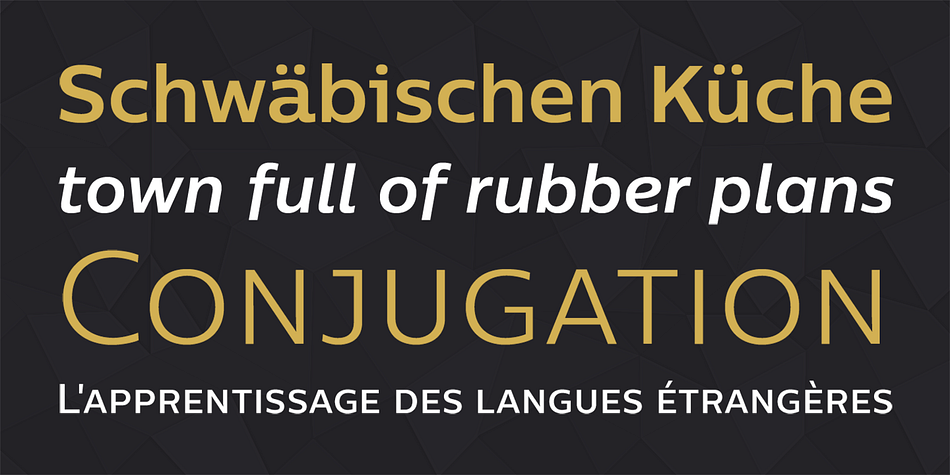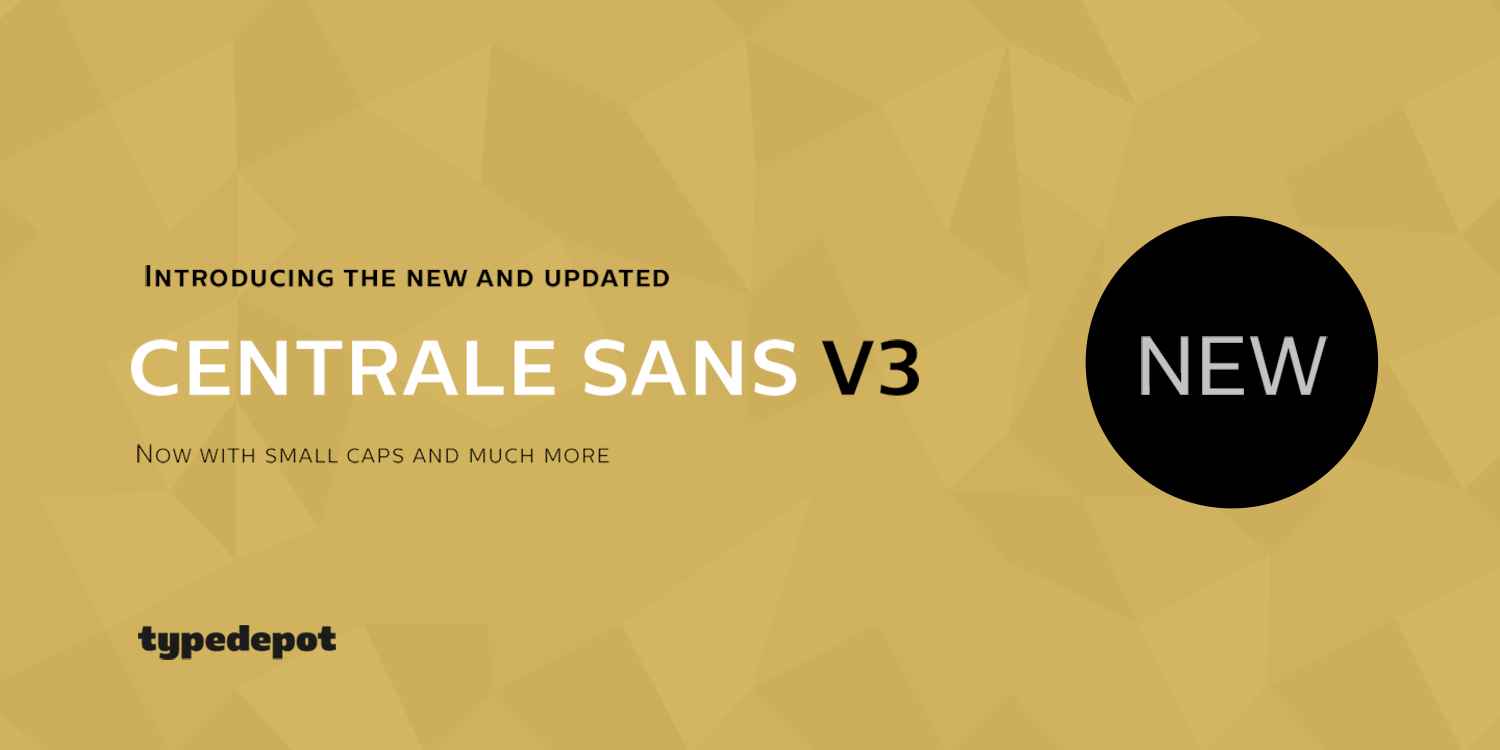
Centrale Sans
Centrale Sans is a sans serif font family. This typeface has eighteen styles and was published by Typedepot.
A humanist design typeface incorporating elements from the more rationally constructed grotesque typefaces.
Its characteristics are relatively large x-height and open apertures.
The overall effect suggests approachability without the sentimentality carried by some of the more authentic humanist designs - contemporary and precise.
A humanist design typeface incorporating elements from the more rationally constructed grotesque typefaces. Its characteristics are relatively large x-height and open apertures. The overall effect suggests approachability without the sentimentality carried by some of the more authentic humanist designs - contemporary and precise.